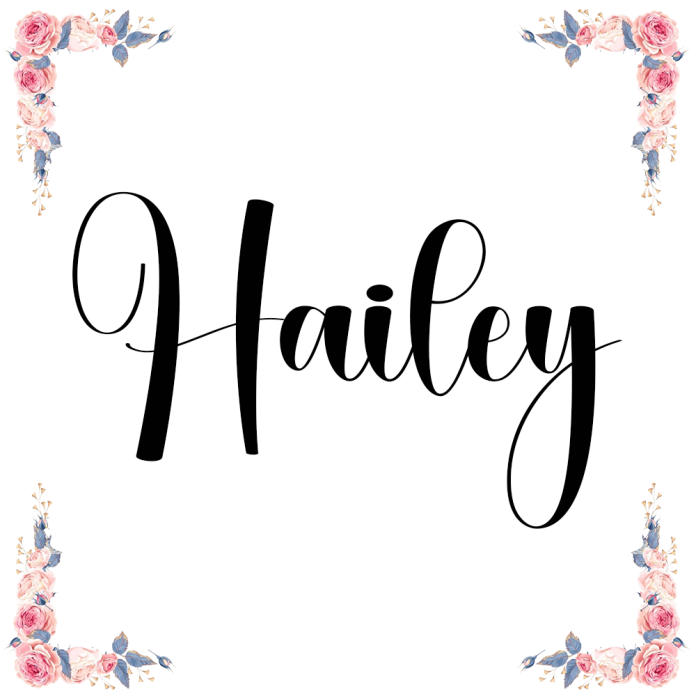
Hailey Font is a sweet and friendly handwritten font. Fresh and casual, this font is ideal for writing wedding invitations, cards, or any other design that might need a lovely touch.